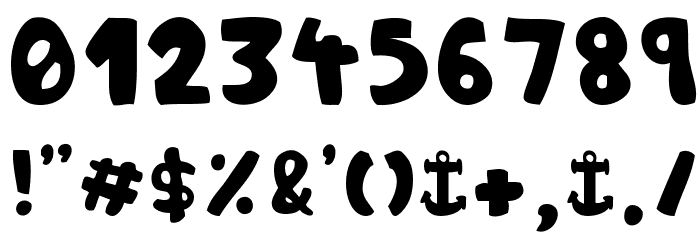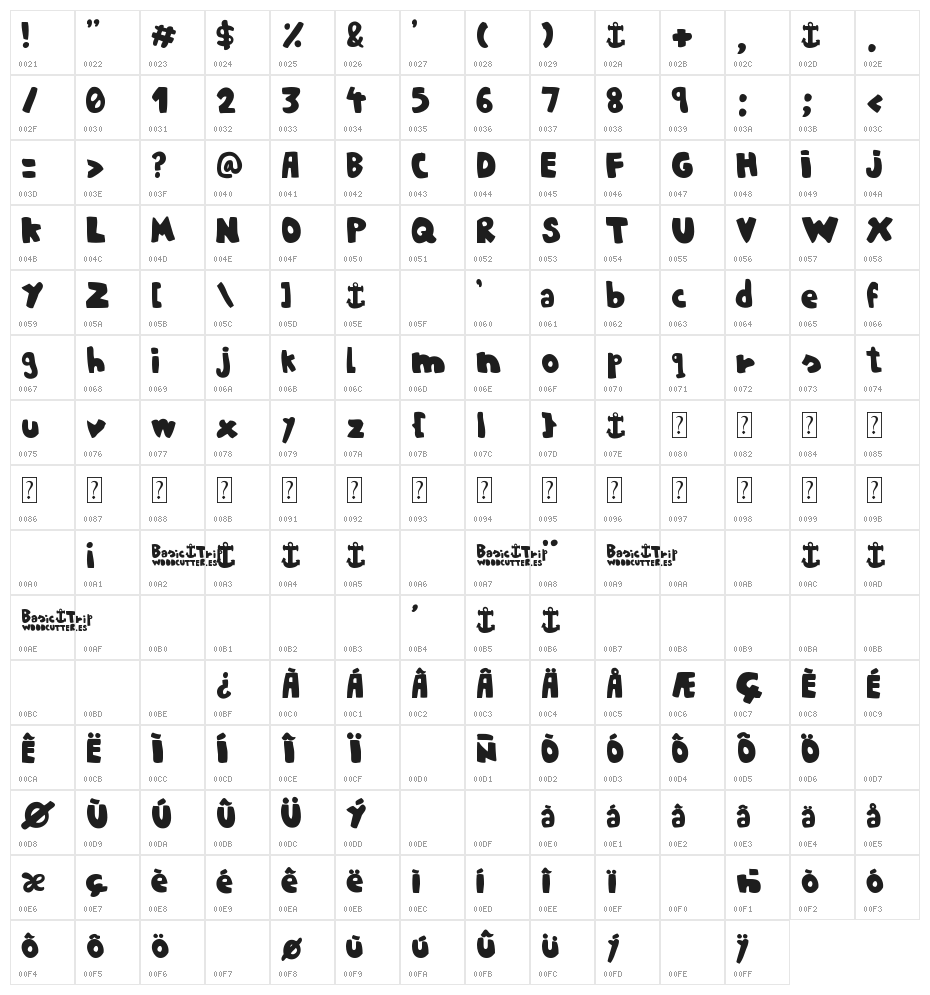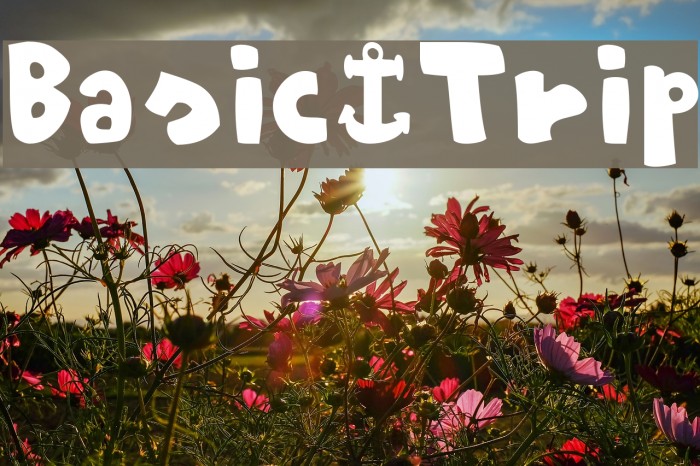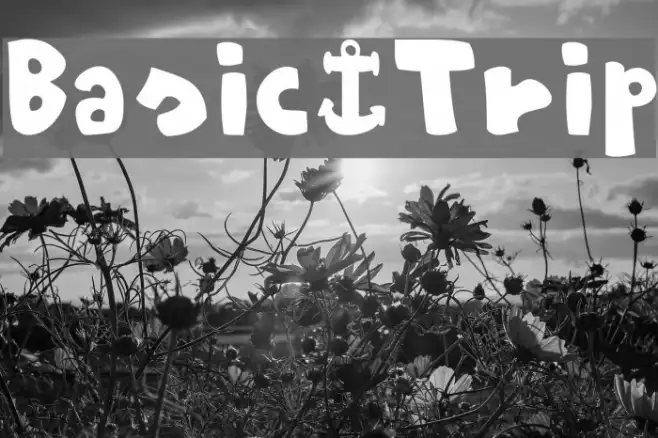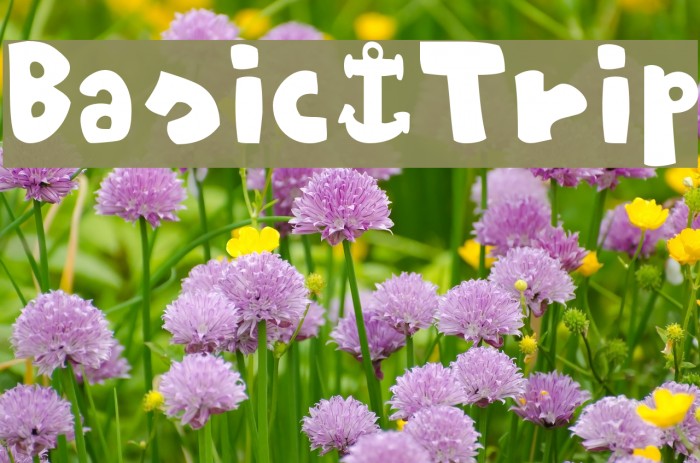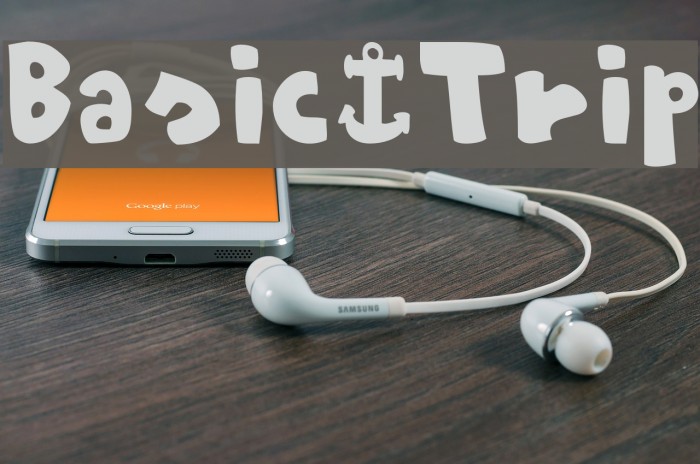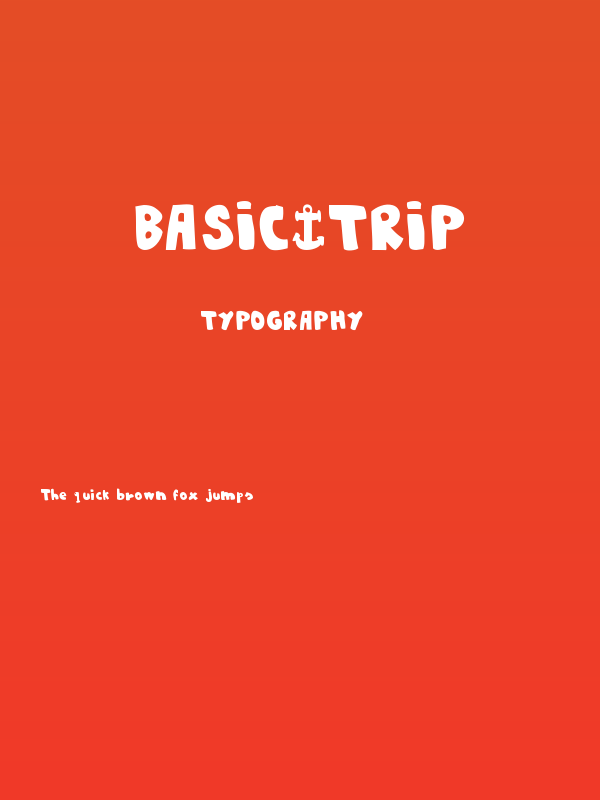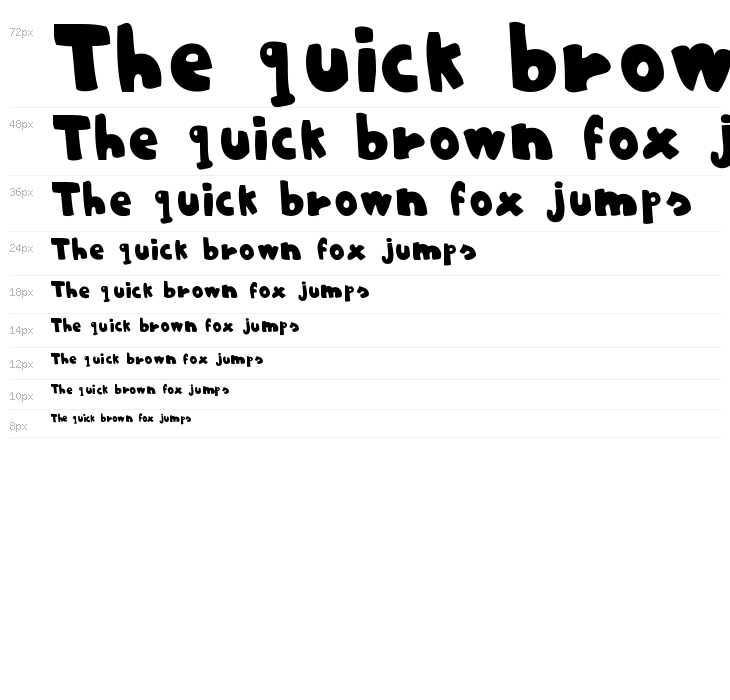
Basic-Trip Font
Basic-Trip Description
This font features a playful and bold design with a hand-drawn aesthetic. The characters are thick and rounded, giving a whimsical and informal appearance. The uppercase and lowercase letters maintain a consistent style, with exaggerated curves and uneven lines that add to its charm. Numbers and special characters follow the same playful theme, making it suitable for creative and fun projects. The font's unique style makes it stand out, perfect for capturing attention in a variety of contexts.
| Overall Style | Playful, Whimsical, Hand-drawn |